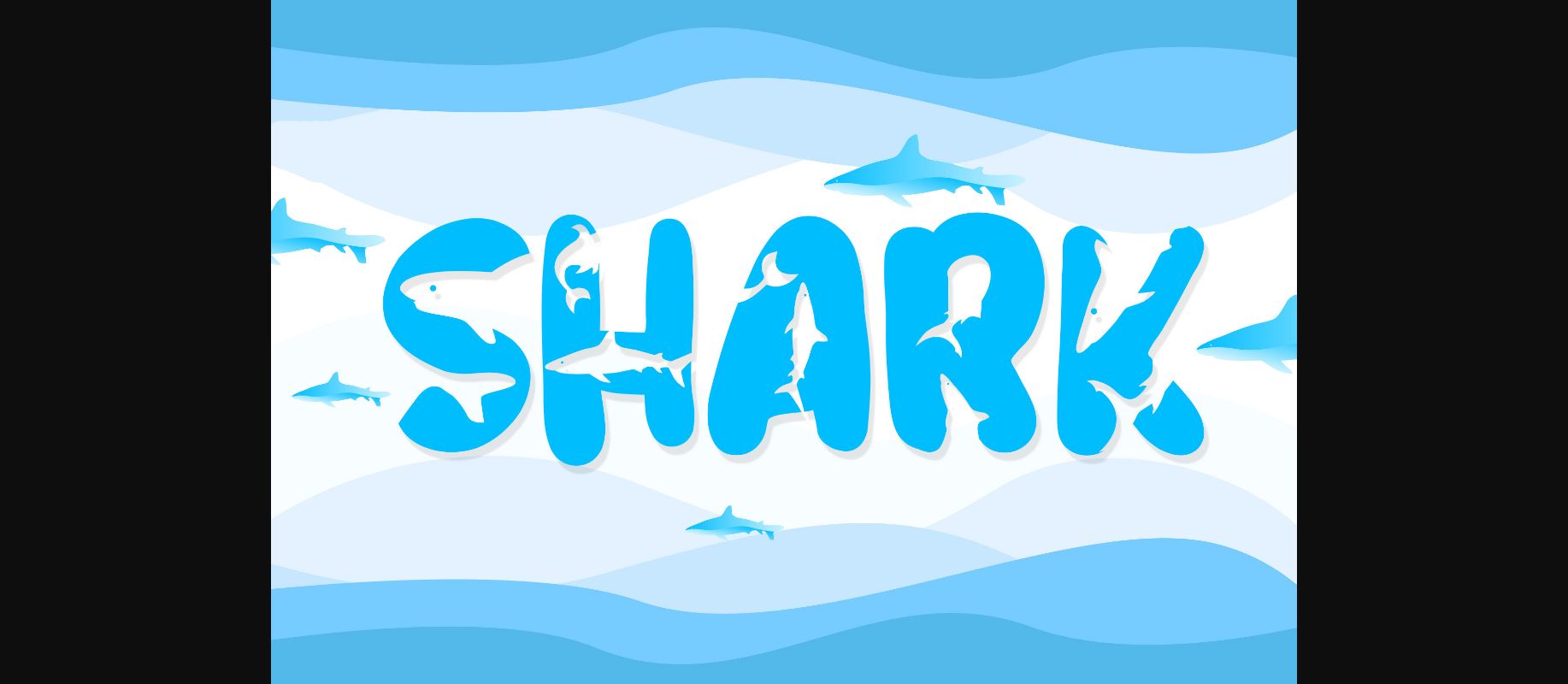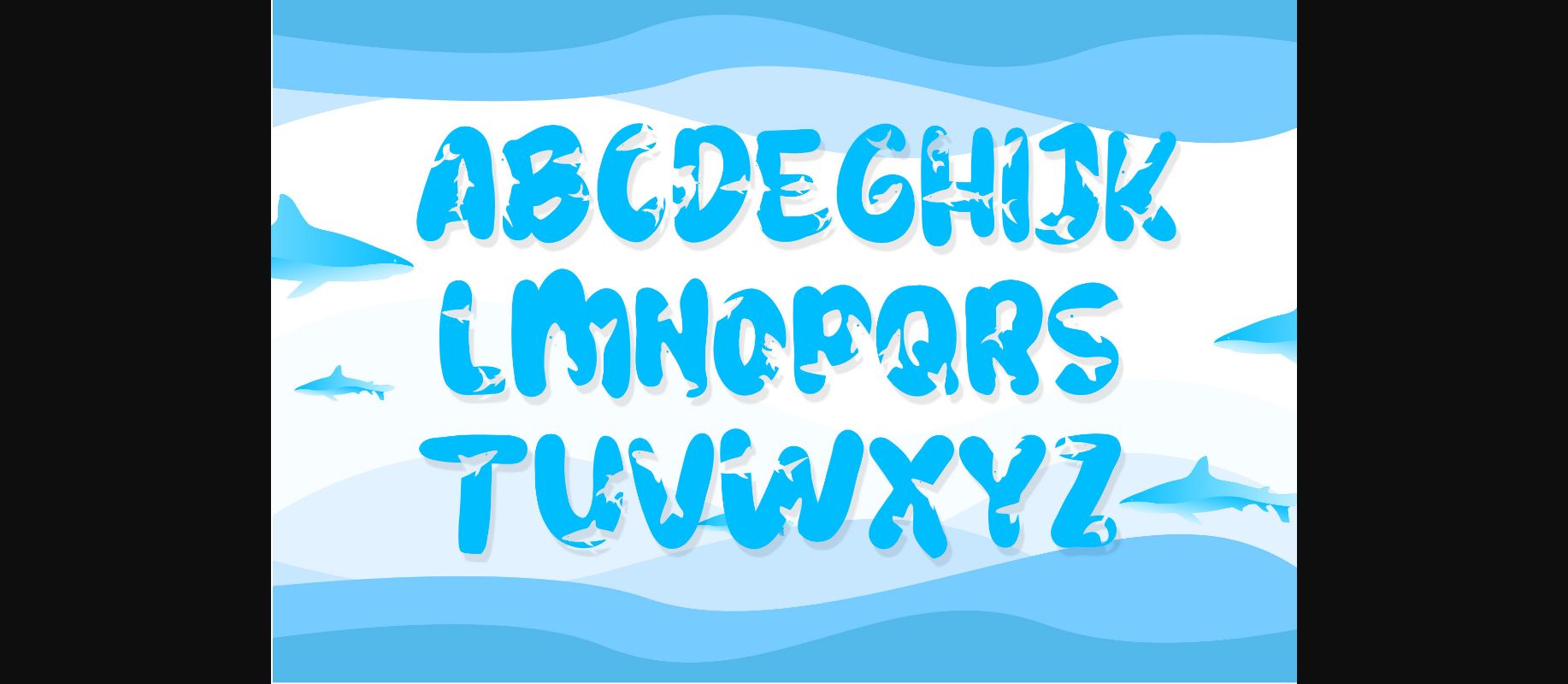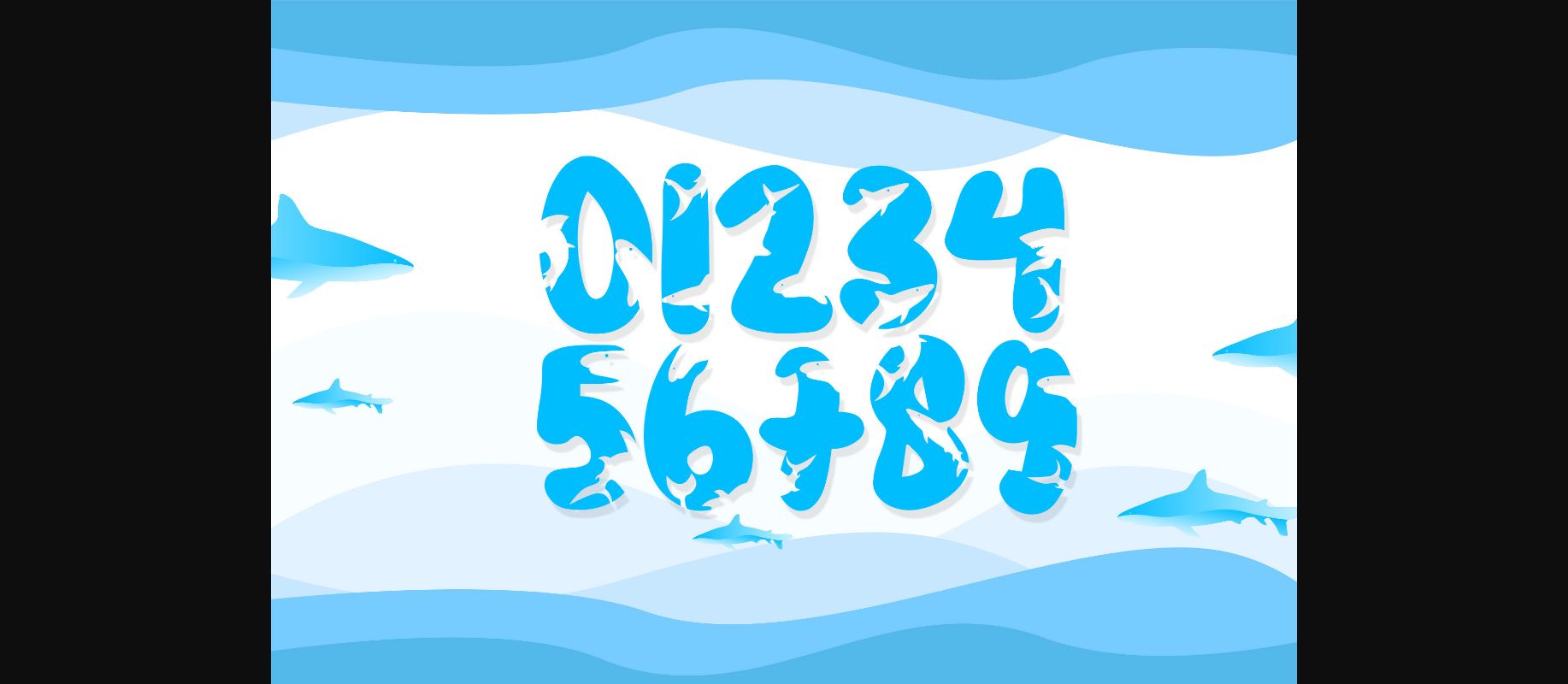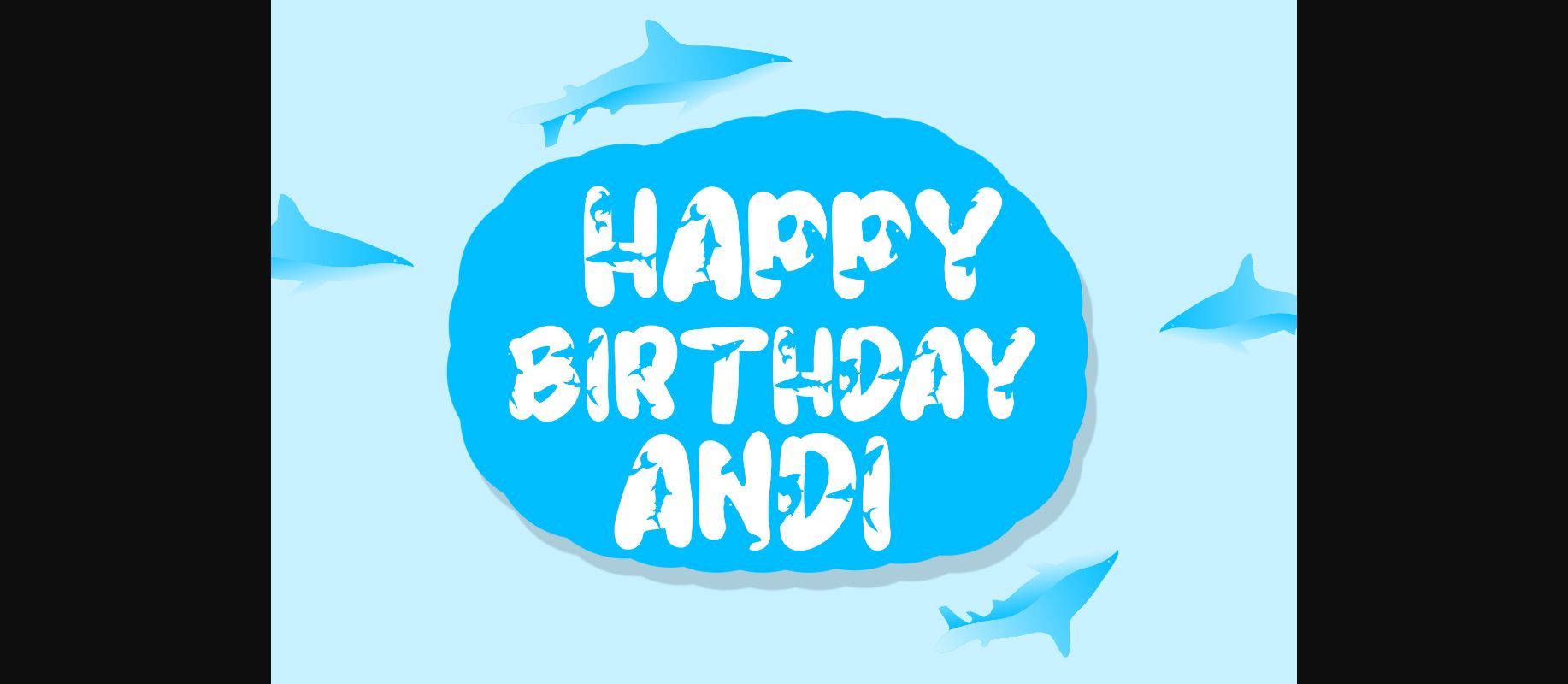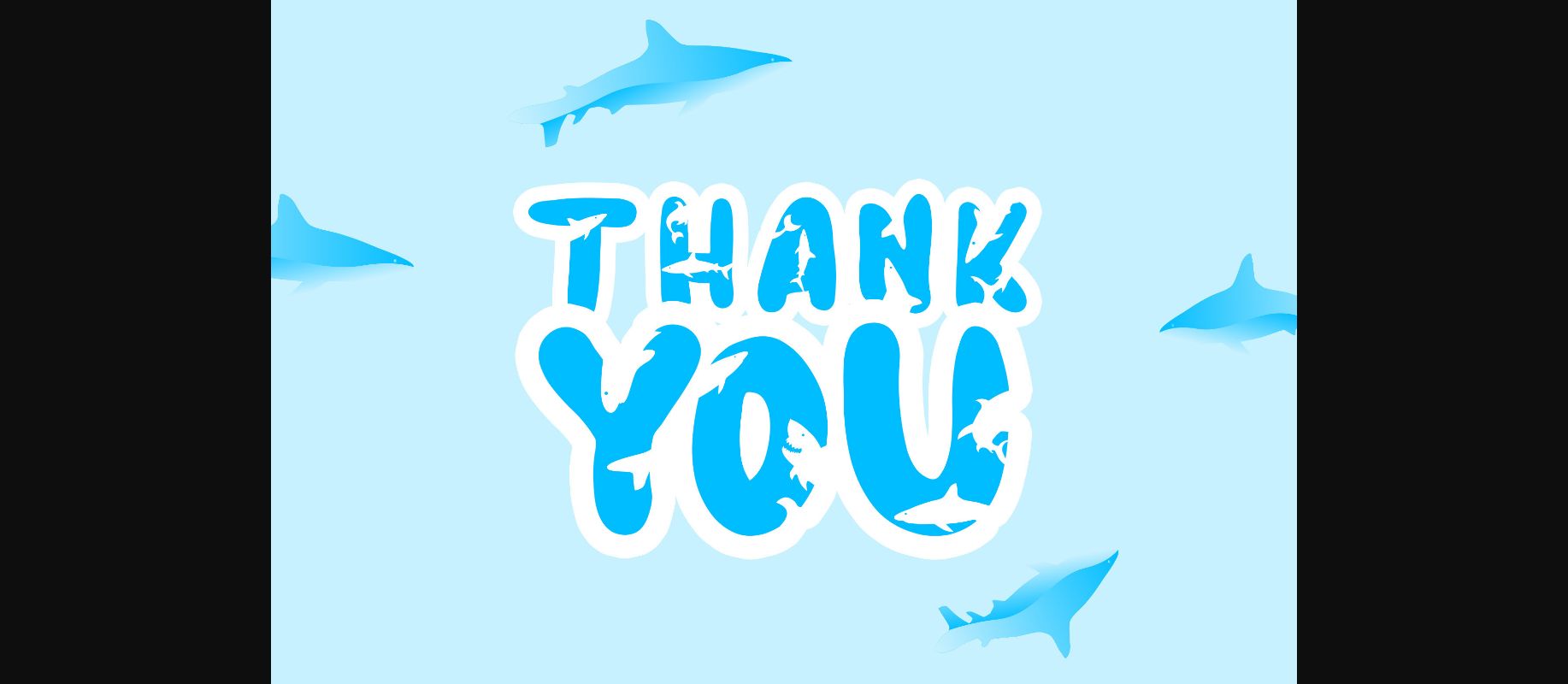
HomeDecorative FontsShark Font Decorative Fonts Shark Font FacebookXPinterestWhatsApp 1 of 7 ... Shark Font Poster 2... Shark Font Poster 3... Shark Font Poster 4... Shark Font Poster 5... Shark Font Poster 6... Shark Font Poster 7... About Shark Font Shark is a cool, friendly decorative font. Add it to each of your party invitations, gathering, or pretty much any design that requires a touch of youth and joy. DOWNLOAD NOW People also explored Giora Whisper Font Rabbitie Font Handwritten Font Bundle Vol 5 Volstead Meliya Script Cutie Face Font Mandala Font Spring Herbs Font Shirelda Script Font 324 0 TagsSharkShark Font Previous articleLittle Mummy Duo FontNext articleSpooky Halloween Font LEAVE A REPLY Cancel reply Comment: Please enter your comment! Name:* Please enter your name here Email:* You have entered an incorrect email address! Please enter your email address here Website: Save my name, email, and website in this browser for the next time I comment. Personal Use Free Foolish Hand Personal Use Free Read more about this font Boronic Personal Use Free Read more about this font Cottage Personal Use Free Read more about this font Sunbright Font Personal Use Free Read more about this font BLOG How to Install and Use Fonts on Windows, macOS, and Web Projects How to Install and Use Fonts on Windows, macOS, and Web Projects Fonts are a crucial part of design and branding. Whether you’re designing a... Where to Buy American Fonts Online in 2024 Fonts That Capture the Spirit of New York City Free Fonts Risk: Why Free Fonts Can Be Dangerous for Designers